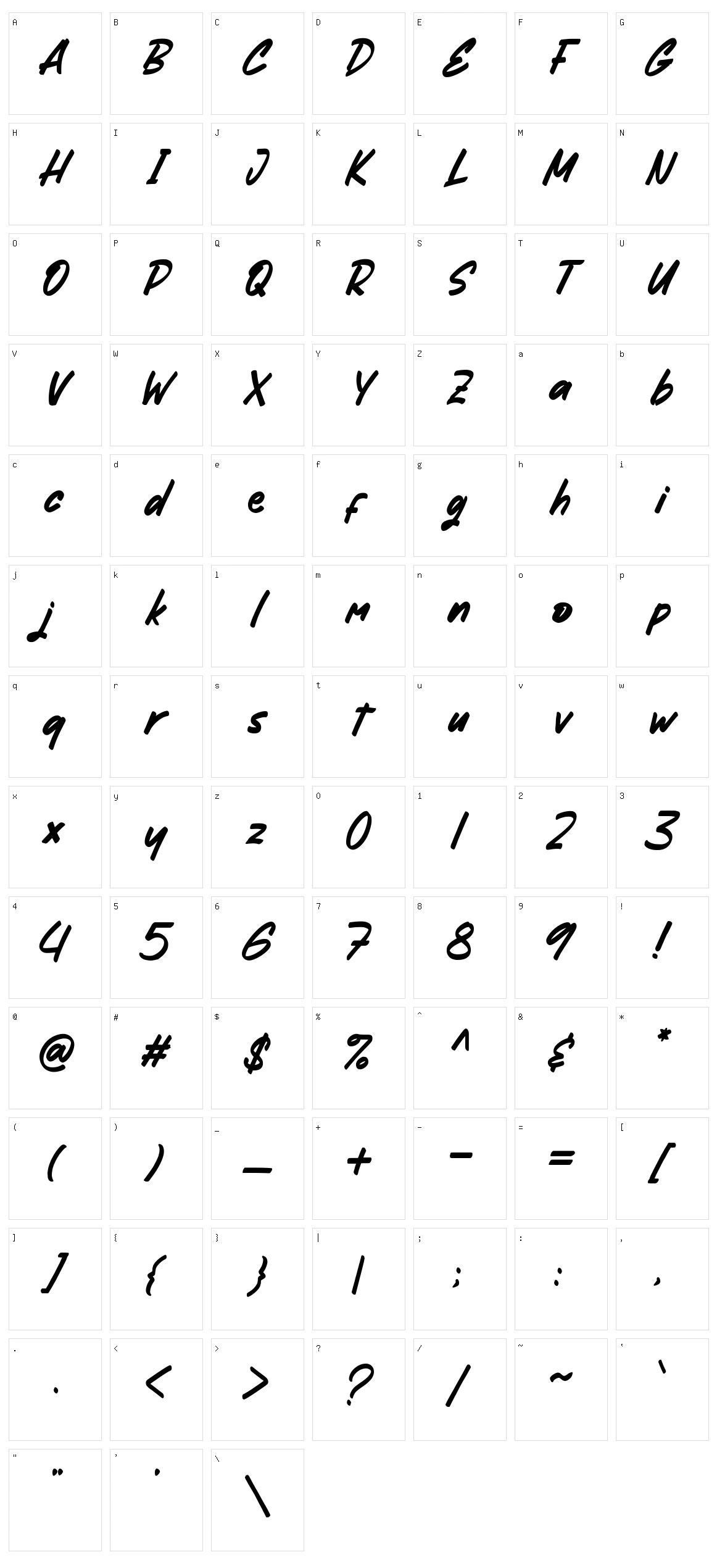
The free font Mightsilly is carefully designed by Qwrtype Foundry, showcasing a thoughtful balance of creativity and usability and falls under the Script font style. When you download the ZIP file, it contains only 42.47 KB of font files, making it lightweight and quick to download. Please review the license details below to understand permitted usage and distribution rights. If license information is not available, we recommend using this font for personal projects only or contacting the author directly for commercial usage permissions.